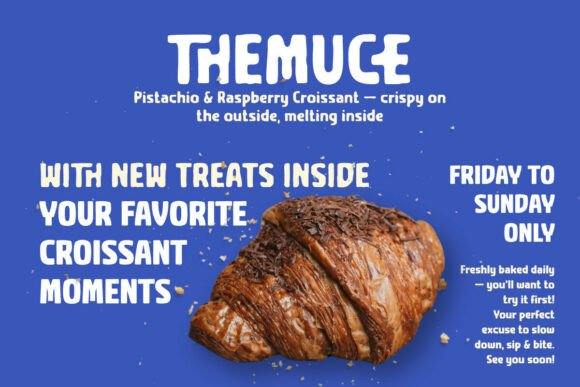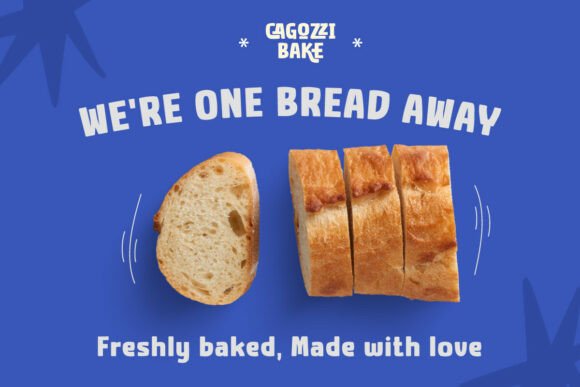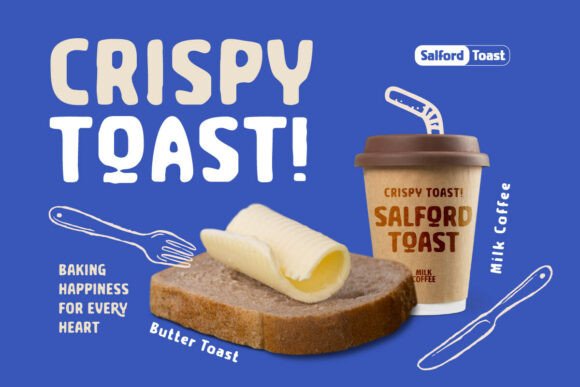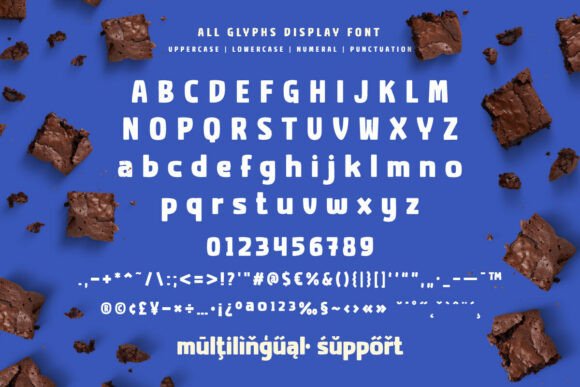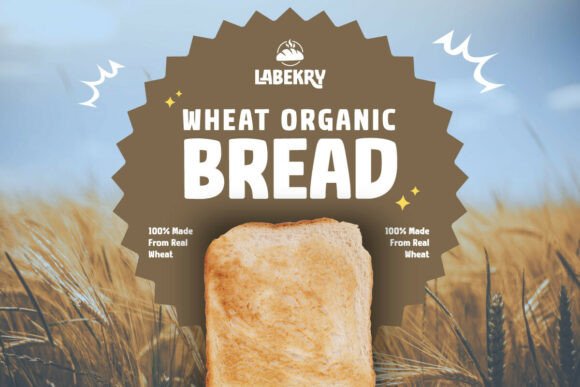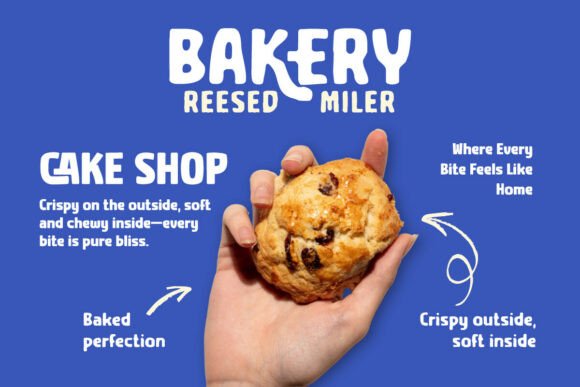
Introduction to Gochu Font
Do you remember the first time you walked into a quaint little bakery and were immediately enveloped in the warm, inviting aroma of freshly baked goods? The soft glow of the display case, the cheerful chatter of the staff, and the rows of perfectly arranged pastries all combined to create a sensory experience that left you feeling cozy and content. As a designer, it’s moments like these that inspire us to create work that evokes a sense of warmth and charm.
Enter the Gochu Font, a delightful bakery display font designed to bring the magic of the bakery to your creative project. With its soft curves and chubby letterforms, Gochu Font is the perfect addition to any design that needs a touch of homemade love.
Key Features of Gochu Font
- Comes in a single weight, making it perfect for use in headings, titles, or short text blocks.
- Designed to be versatile and suitable for a wide range of creative projects, from digital art to print materials.
Honest Review: Gochu Font
I recently came across the Gochu Font and I’m excited to share my honest review with you. As a designer, I’m always on the lookout for high-quality design resources to elevate my creative projects.
What works well: ✨ The Gochu Font has a unique and modern design aesthetic that makes it perfect for a variety of applications, from digital products to print materials. The font is also incredibly versatile and can be used for both headings and body text.
- Unique and modern design aesthetic
The Gochu Font is a high-quality design resource that can elevate your creative project to the next level. This versatile font is perfect for designers and artists looking for a unique and stylish element to add to their work.
The Gochu Font is perfect for a variety of creative projects, including:
- Banner design
For the best results, use the Gochu Font with a transparent background and combine it with other high-quality design elements. Experiment with different font sizes, colors, and styles to create a unique and eye-catching design.